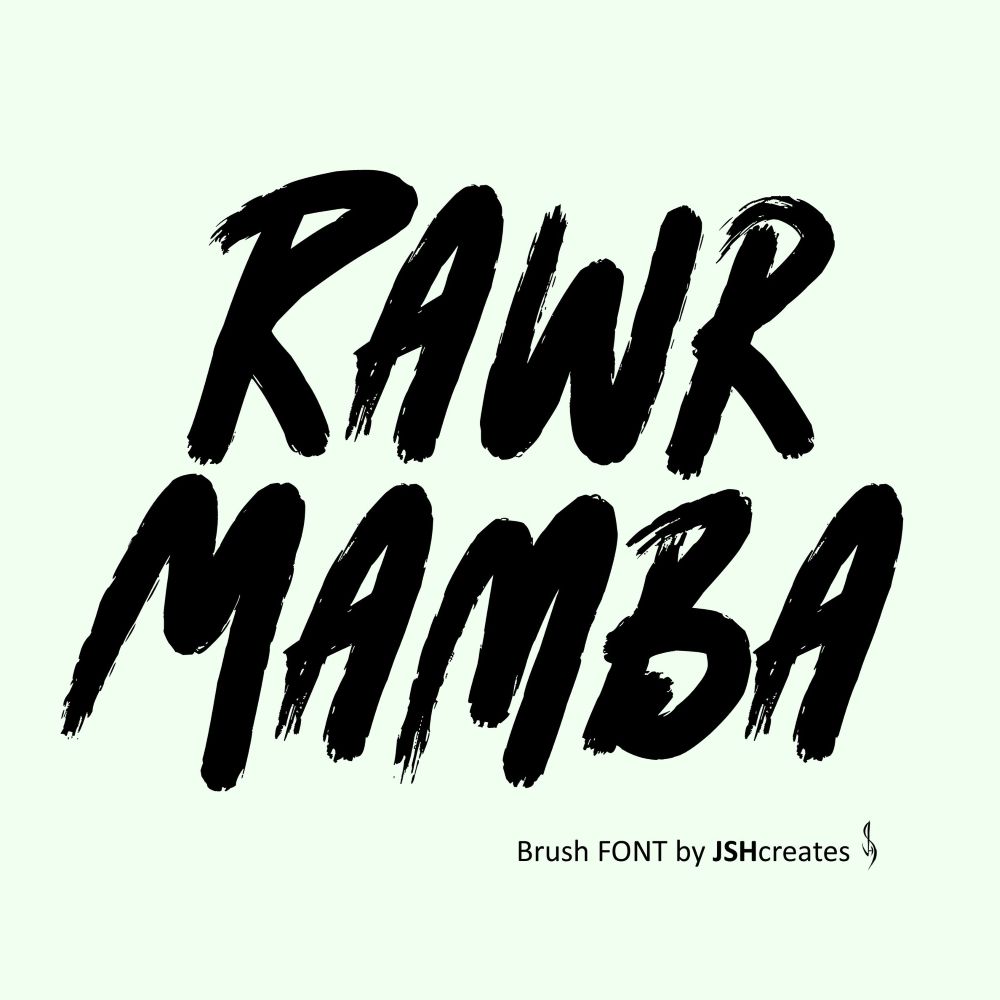
Rawr Mamba Font
Handwritten brush font. “Rawr Mamba”. Perfect for advertising and display purposes, including banners, book covers, shirts, posters, logos and much more!
This is an All CAPS font, including numbers and some basic characters.